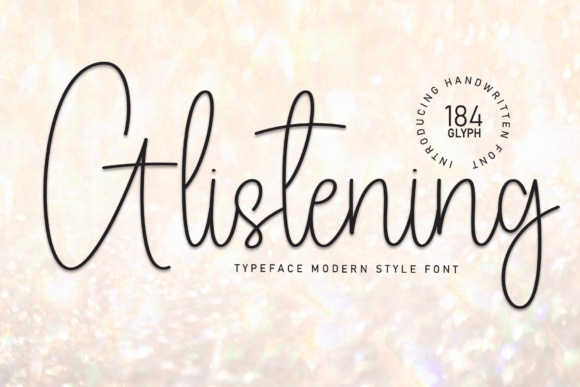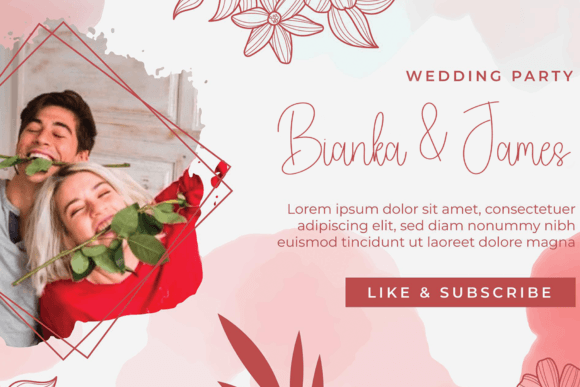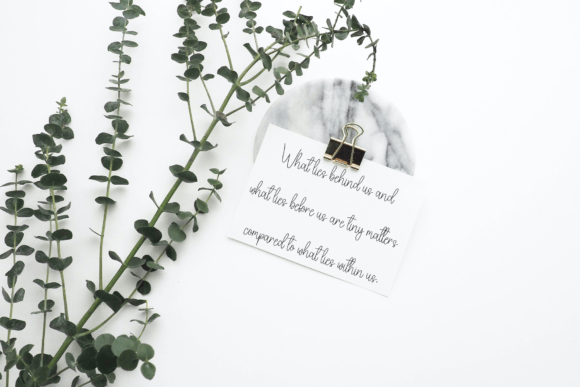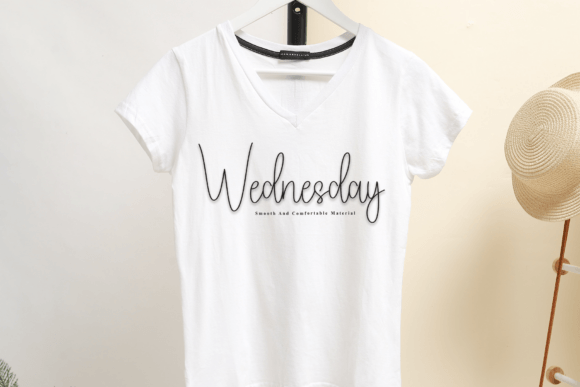
Glistening Font
About the Glistening Font
Get ready to be inspired by Glistening Font, a fresh and dynamic typeface for modern creators. Glistening is a beautiful script font that looks like elegant, flowing handwriting. It has smooth, curvy letters that shine with style, perfect for adding a fancy touch to invitations, logos, or cards.
Glistening excels in applications requiring a touch of refined elegance, such as wedding invitations, luxury branding, or high-end product packaging. Its graceful curves also lend themselves well to short, impactful headlines and stylish signage. However, its delicate nature makes it unsuitable for body text or UI elements where readability is paramount. Extended use could strain the eye.
For optimal visual harmony, pair Glistening with a clean sans-serif like Lato for a modern contrast, or a classic serif such as Garamond for a timeless feel. A geometric sans-serif could also create a striking juxtaposition, depending on the desired effect.
Glistening projects an air of sophisticated charm and understated luxury. Its personality is best described as elegant and graceful, making it ideal for brands aiming for a premium and refined image.
Glistening Font Usage Examples
Glistening Font Example